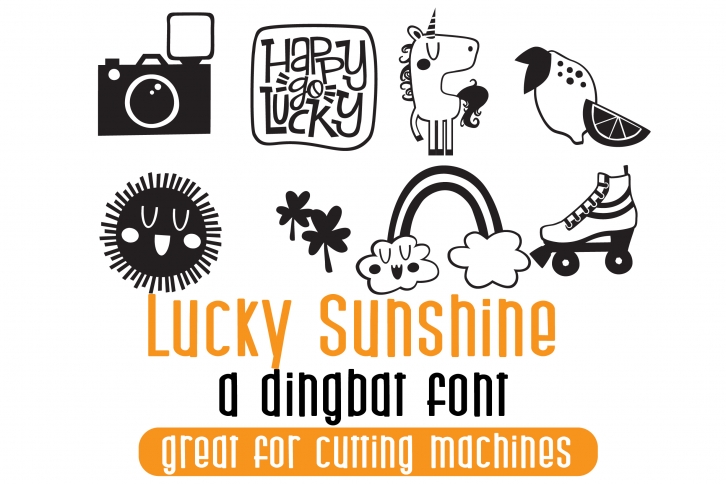
DB Lucky Sunshine is a beautiful font that was designed by Illustration Ink. It's a great choice for designers and creatives who need such a font. It was released on May 14, 2019 and the file size is 1.86 MB. DB Lucky Sunshine may give a more youthful, expressive and casual look to your project. It is a very beautiful, refined, elegant, and high-quality font.